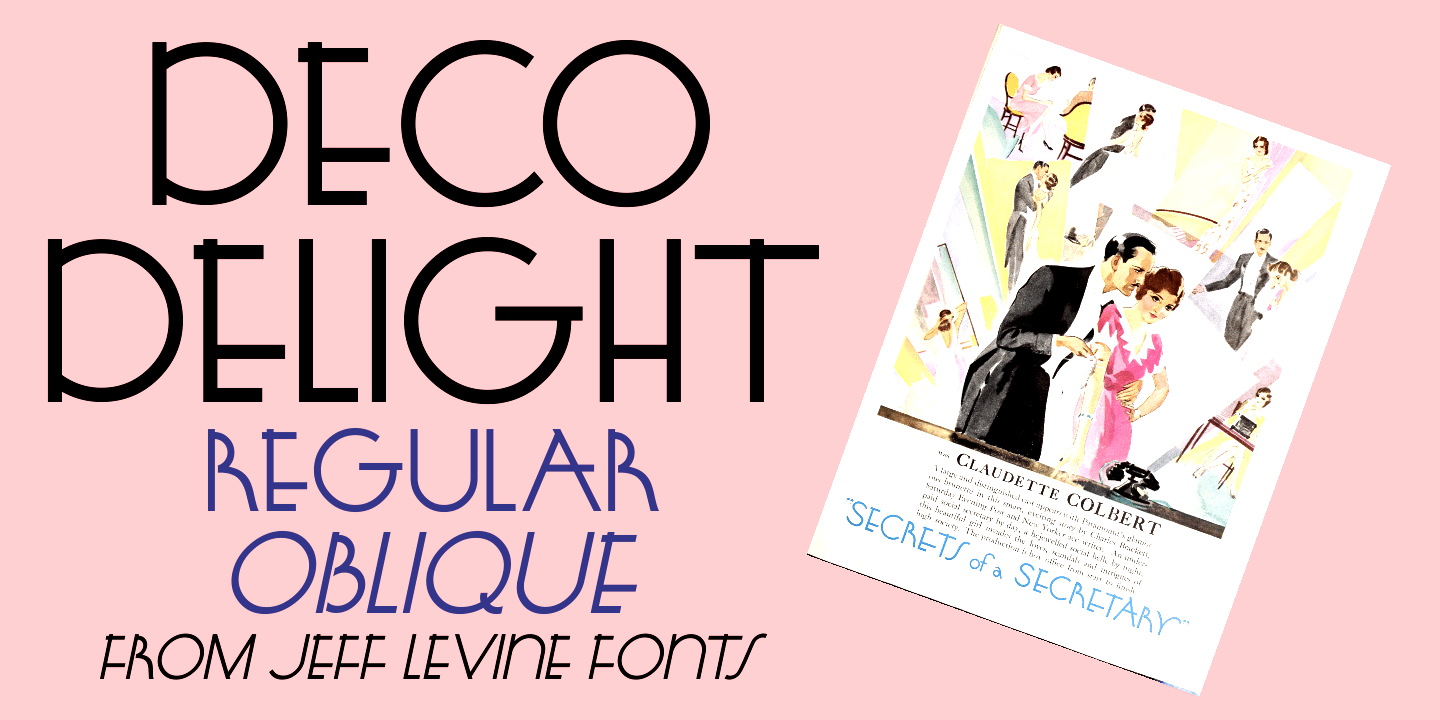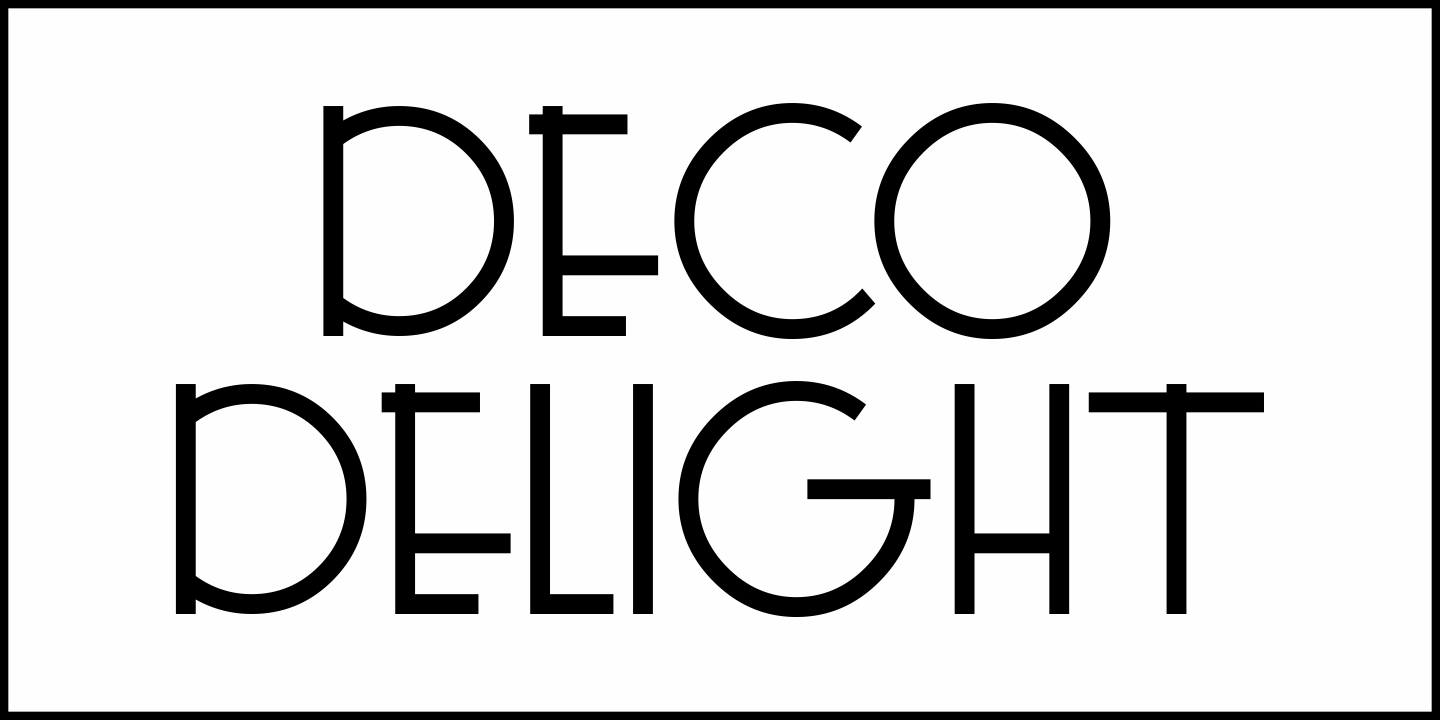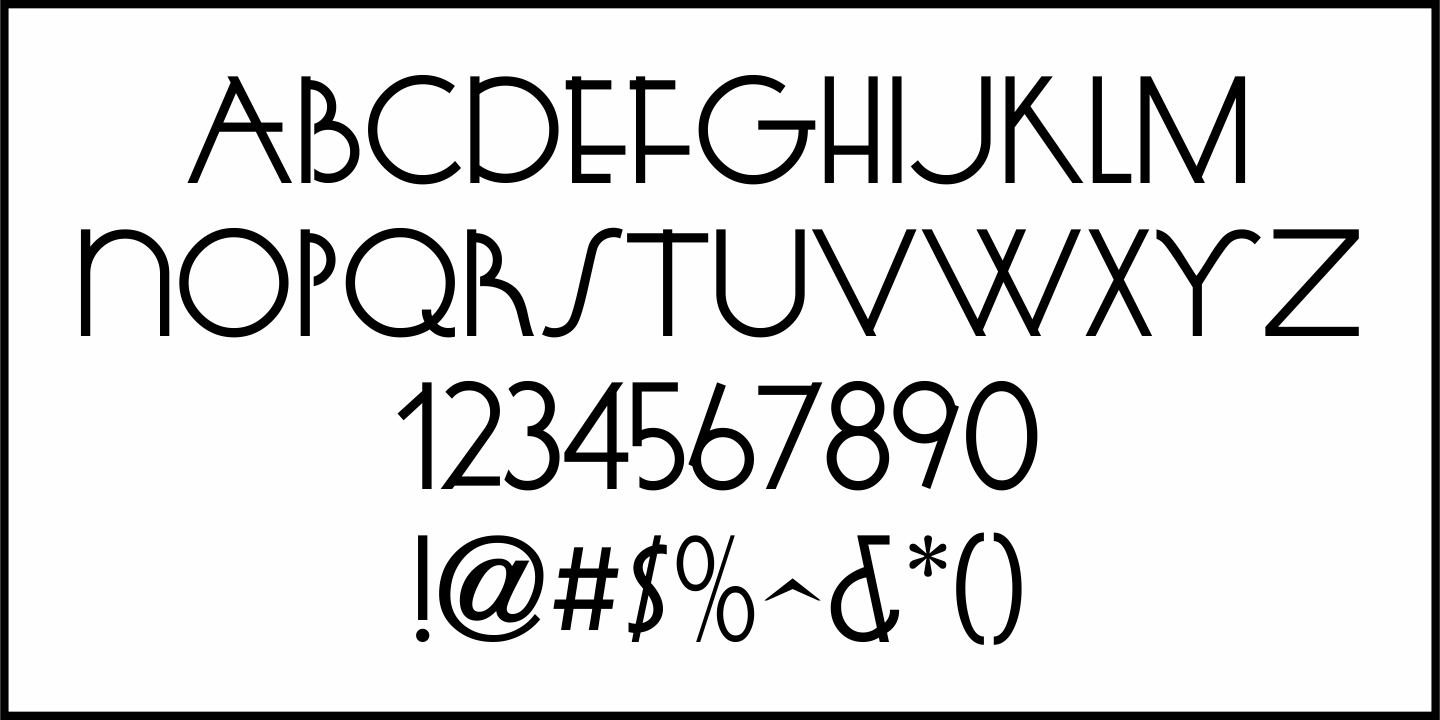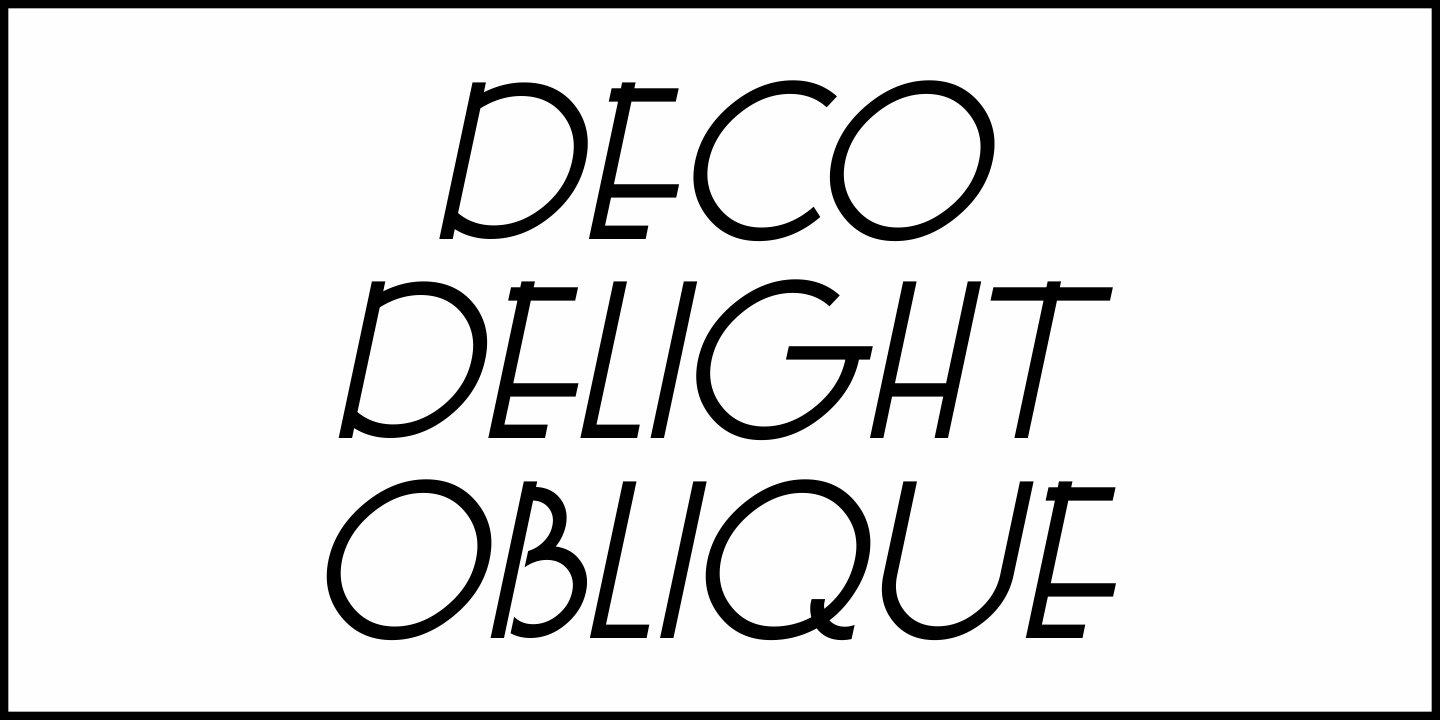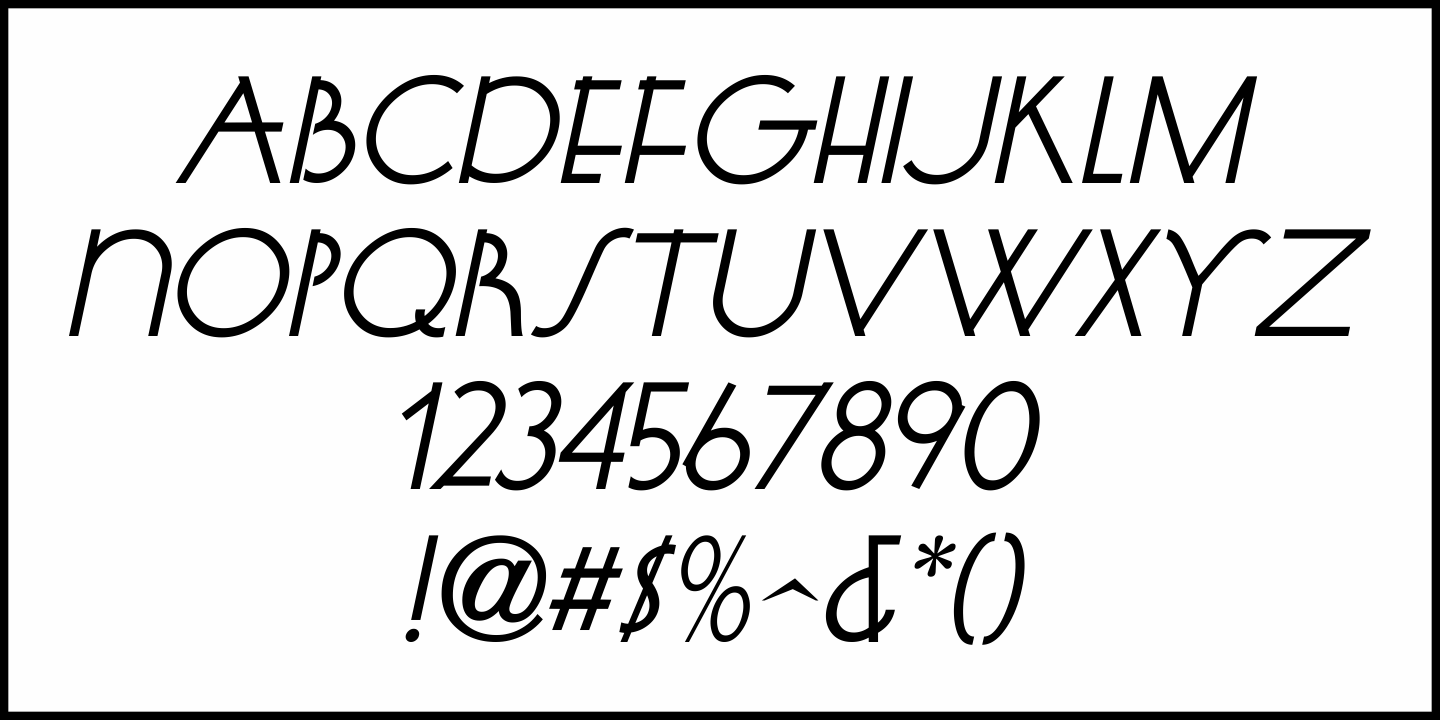
Deco Delight
An ad for the film "Secrets of a Secretary" in the May 2, 1931 issue of Motion Picture Herald provided some lovely Art Deco hand lettering in a stylized monoline design.
This is now available as Deco Delight JNL, in both regular and oblique versions.